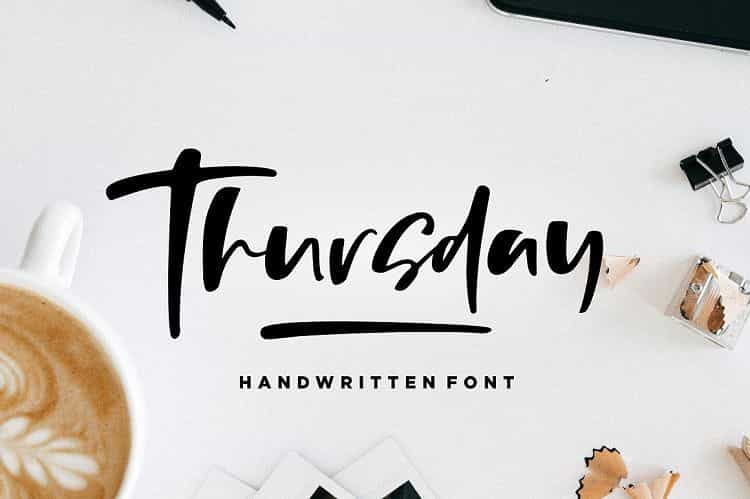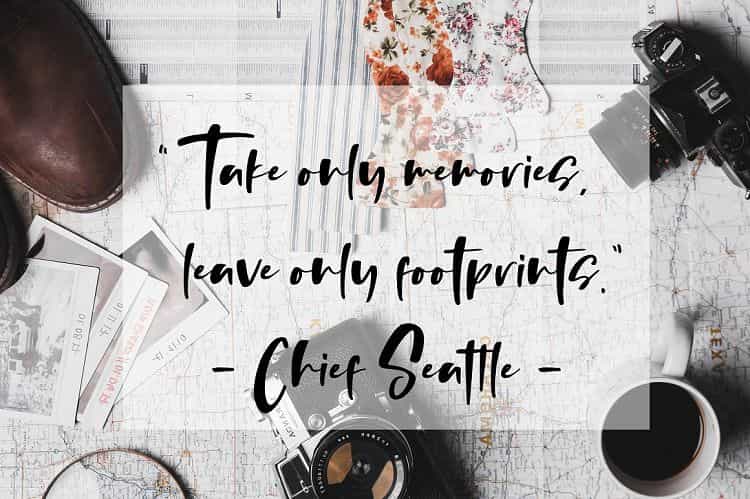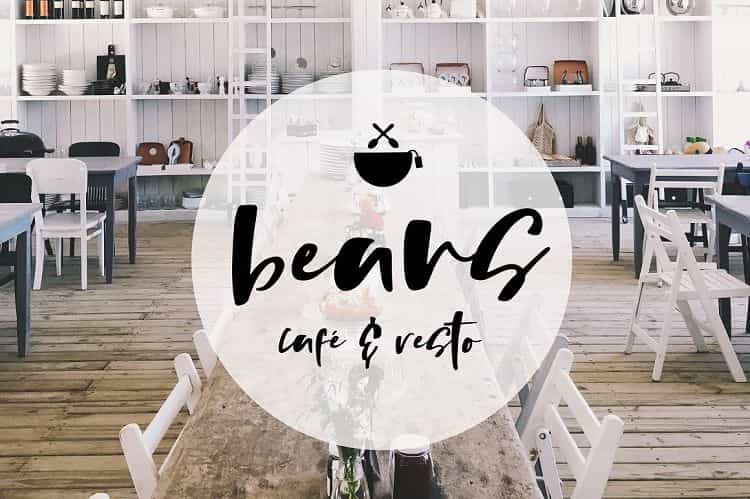
Discover Thursday Vibes Brush Font, part of the Brush collection—a versatile and unique font perfect for adding a personal touch to your projects. Download it for free and enjoy crafting designs with style, from invitations to social media posts. This font is available exclusively for personal use, giving you the freedom to create without limits. Unlock your creativity with Thursday Vibes Brush Font today!
Introducing Jungle Survivor Thursday Vibes Brush font is based on the handwritten font of a certain calligrapher. On Thursday Vibes, everything you need as in logos & branding, invitation, stationery, wedding designs, social media posts, advertisement, product packaging, product designs, label, photography, watermark, special events or any use you will encounter can be accessed.